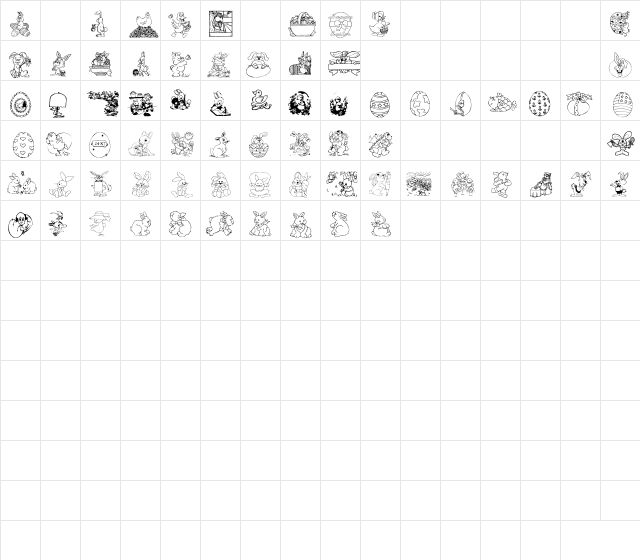
Complete NewSymbolFont Regular glyph index. Displaying only characters natively supported by NewSymbolFont Regular font.
NewSymbolFont is a composed and adaptable typeface that performs quietly and consistently across a wide range of design contexts.